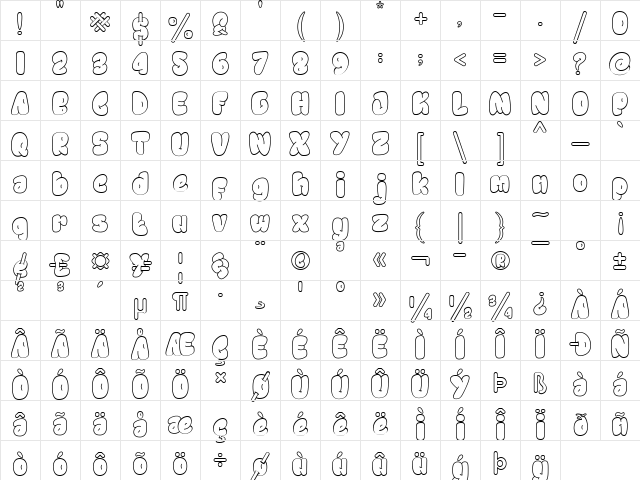
Chewy Outside Regular Free Font
Chewy Outside Regular
Designer: Typeline Studio 2020
Complete Chewy Outside Regular glyph index. Displaying only characters natively supported by Chewy Outside Regular font.
Design Context for Chewy Outside
Chewy Outside is a composed and adaptable typeface that performs quietly and consistently across a wide range of design contexts.